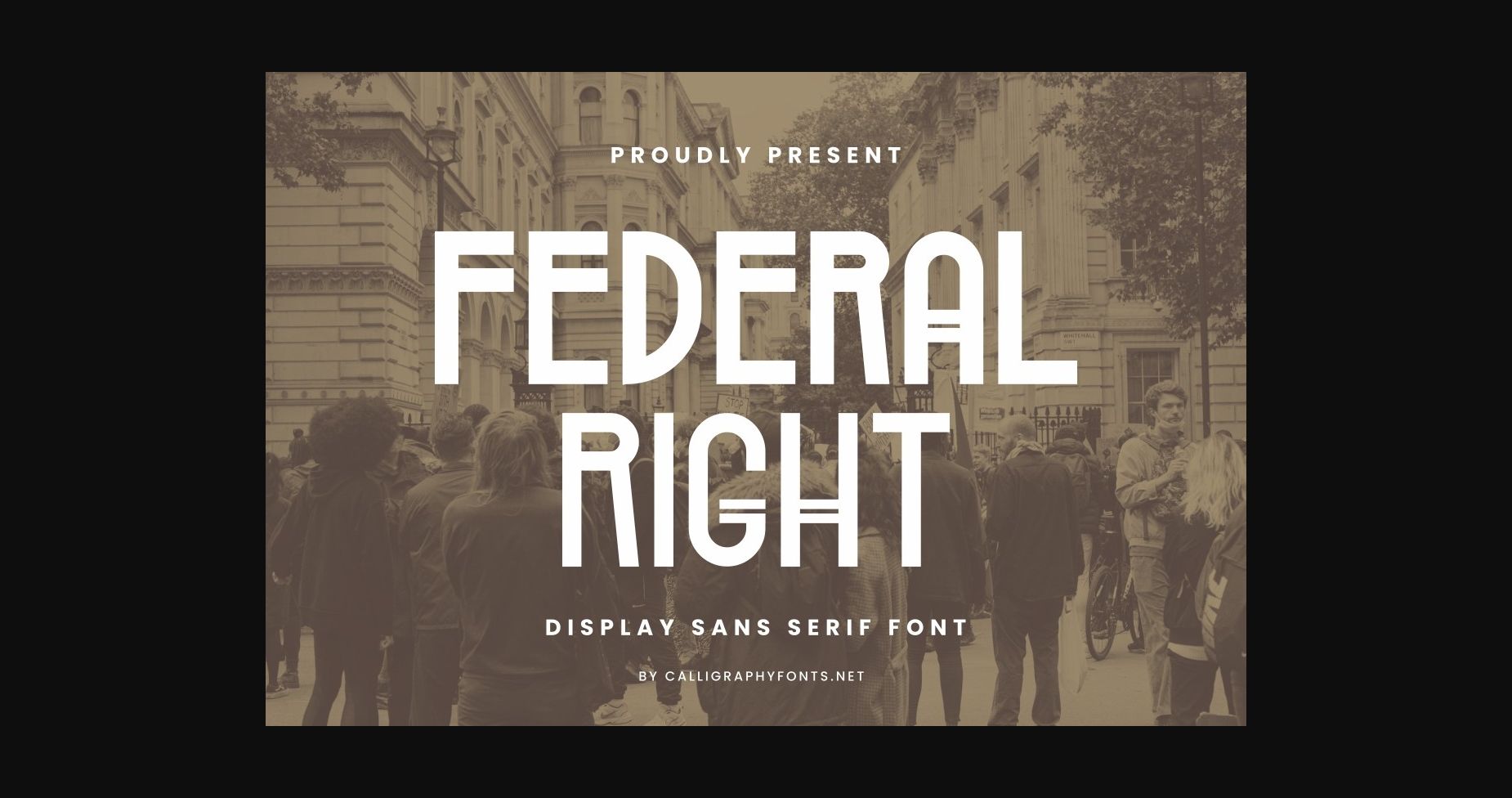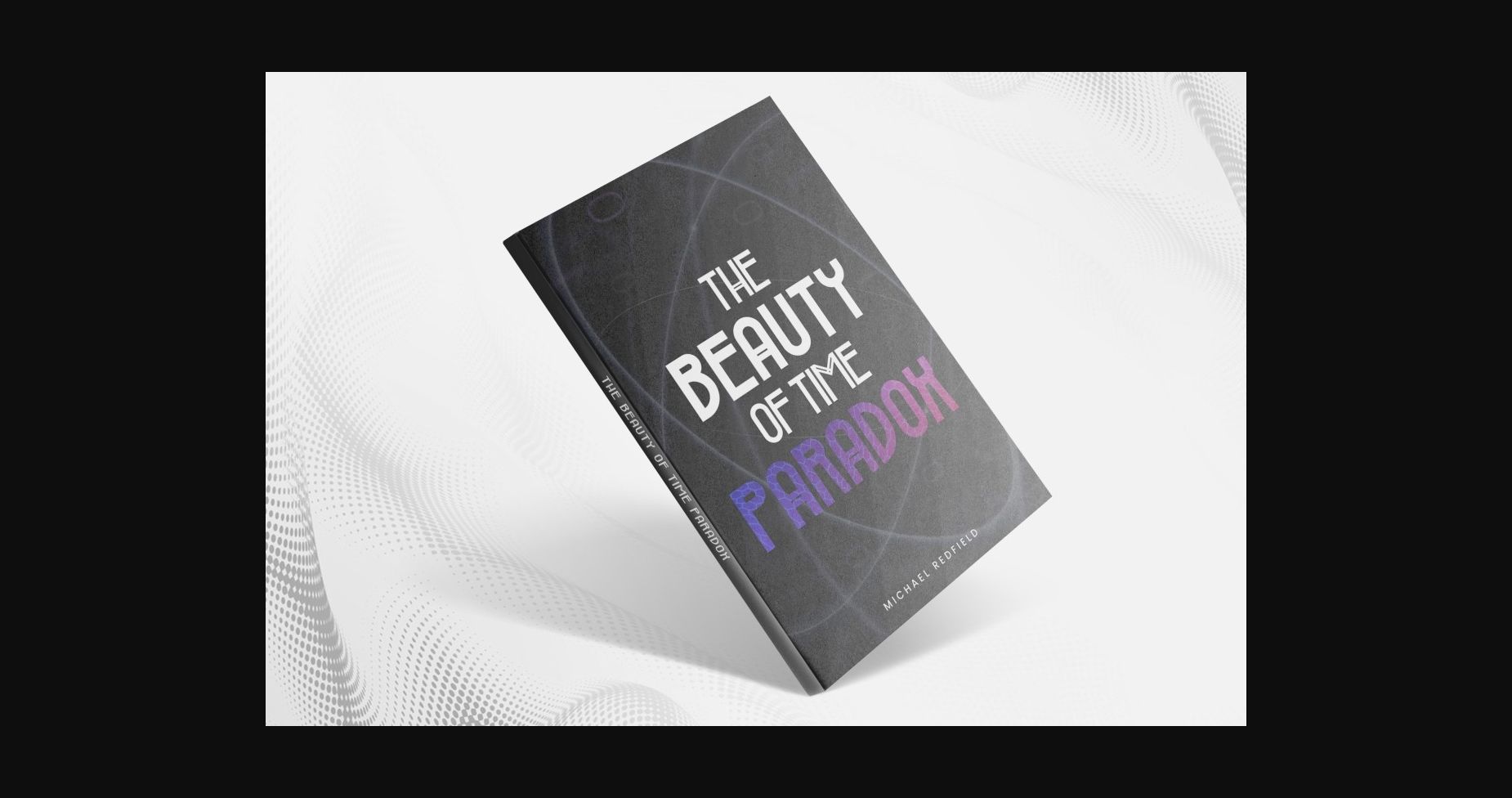
About Federal Right Font
Federal Right is a simple, adaptable and assertive sans serif font. No matter the topic, this font will be an incredible asset to your fonts’ library, as it has the potential to elevate any creation.